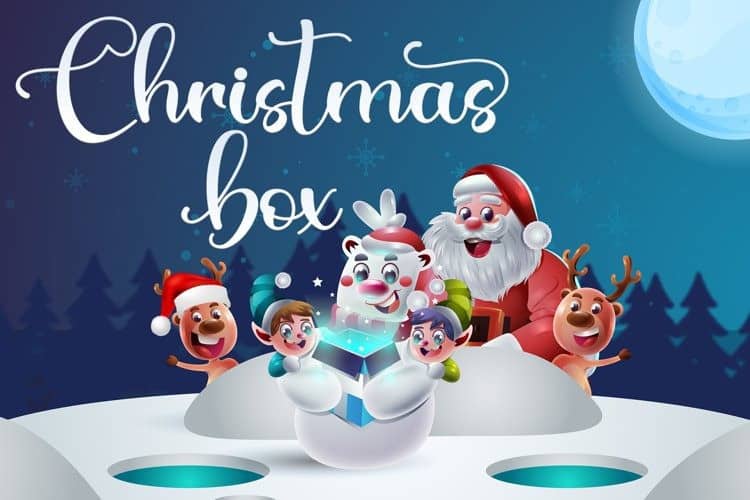
Christmas Bear Calligraphy Font
Christmas Bear Calligraphy Font is a modern calligraphy Typeface. It brings a beautiful and attractive typeface. It’s designed and shared by Sakha Design. This font can make your writing and brand elegant or beautiful. Christmas Bear is great for unique branding, photo overlays, watermark, greeting cards, posters, business card, invitations, wedding, photography, fashion, apparel, letter, stationery, etc.
A wide range of swashes (a-z), alternates (a-z), ligature and support multilingual are included so that you can give your logo or name a custom, hand-calligraphy look.